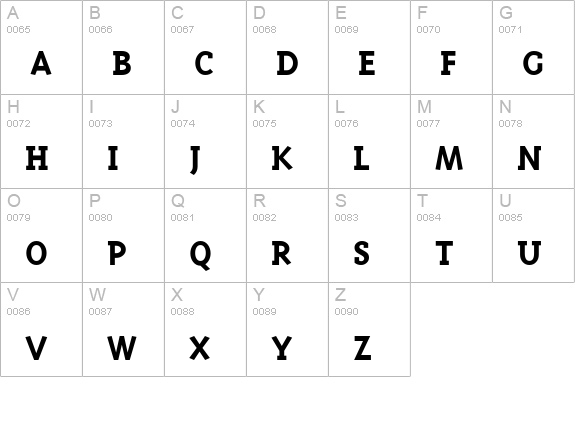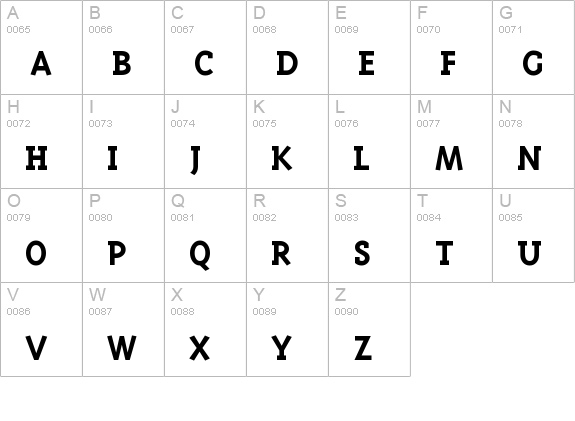
TriplexSerifBold Font Details
TriplexSerifBold is a bold and powerful font that exudes confidence and strength. Its sleek and modern design makes it perfect for a wide range of projects, from logo designs to website headers. The bold serifs add a touch of elegance, making TriplexSerifBold a versatile choice for both professional and creative endeavors. This font is not only visually appealing, but it also offers exceptional readability. Each letter is meticulously crafted to ensure clarity, making it easy for readers to absorb the message effortlessly. Whether used for headlines, body copy, or captions, TriplexSerifBold guarantees a seamless reading experience. One of the best things about TriplexSerifBold is that it is absolutely free. This means that you can download and use it for personal and commercial projects without any restrictions. To get your hands on this stunning font, simply visit FontsMarket.com, where it is freely available for download. With TriplexSerifBold, you can elevate your designs to new heights, adding a touch of sophistication and professionalism. Whether you're designing a brochure, creating social media graphics, or crafting a unique brand identity, this font will undoubtedly make a lasting impression. Its bold and eye-catching style ensures that your message will not go unnoticed. So why settle for ordinary fonts when you can have TriplexSerifBold? Download it now from FontsMarket.com and unleash your creativity. Experience the power and elegance of this font and take your designs to the next level.